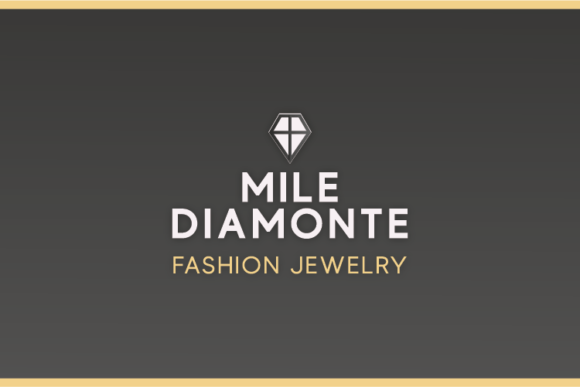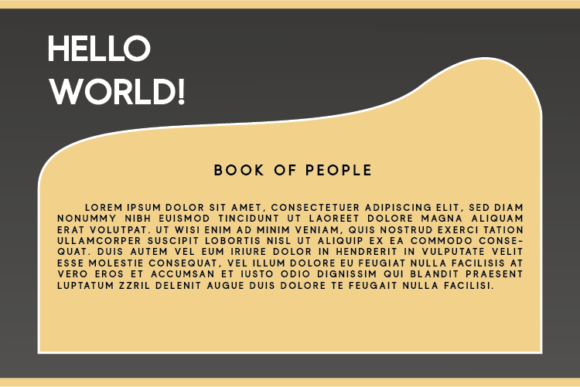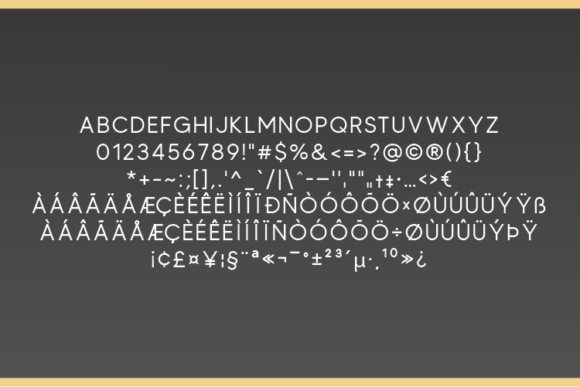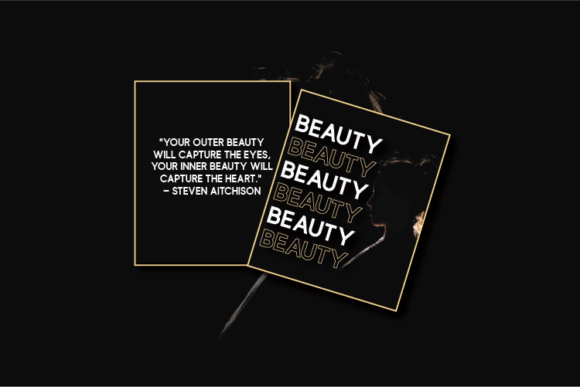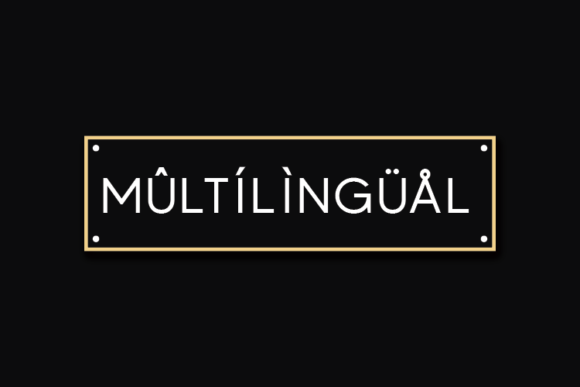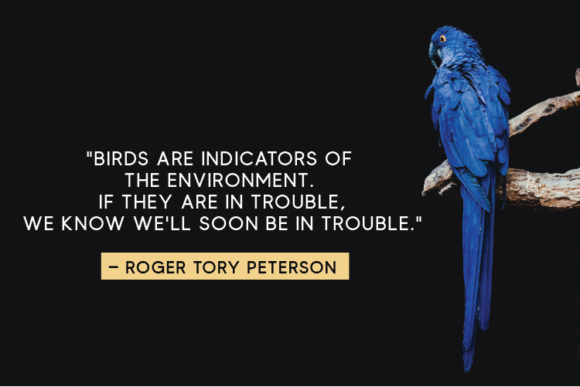
Introduction to Purefly Font
As a designer, there’s nothing quite like the thrill of bringing a creative project to life. The rush of adrenaline as you experiment with different fonts, colors, and layouts, searching for that perfect combination that sets your design apart. For many of us, this moment is what makes all the hard work worth it – the moment when our vision starts to take shape and our design begins to shine.
But finding the right font can be a challenge, especially when you’re working on a tight deadline. That’s where the Purefly Font comes in – a simple yet powerful Sans Serif font that’s perfect for making an impact. With its clean lines and modern feel, Purefly Font is a design resource that’s sure to elevate your creative project and leave a lasting impression.
Key Features of Purefly Font
- Unique font style with a transparent background, allowing for seamless integration with any design.
Honest Review: Purefly Font
As a designer, I’m always on the lookout for high-quality design resources to elevate my creative projects. Recently, I stumbled upon the Purefly Font, and I must say it’s been a game-changer.
- ✨ High-quality font with a sleek, modern design that’s perfect for any creative project
- ✨ Transparent background, allowing for seamless integration with any design element
- ⚠️ Limited font family options
Overall, I’m thoroughly impressed with the Purefly Font. Its high-quality design and free availability make it an excellent choice for any creative project. While it may have some limitations, I believe the benefits far outweigh the drawbacks.
Purefly Font is a versatile design resource suitable for various creative projects, including logos, business cards, and branding materials. Its high quality and transparent background make it an excellent choice for designers who need a reliable font for their projects.
Tips for Getting the Most Out of Purefly Font
What makes the Purefly Font unique?
The Purefly Font features a transparent background, making it easy to layer and combine with other design elements. Additionally, the font is designed with high-quality graphics and typography, ensuring a professional and polished look in your creative project.